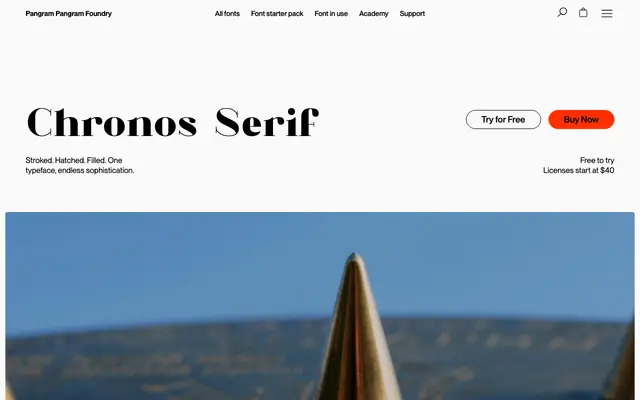
Chronos Serif
Pangram Foundry · Mat Desjardins · 2016
A decorative display serif in three stylistically distinct variants — Stroked, Hatched and Filled — designed for high-end visual work.
Designed by Mat Desjardins, Chronos Serif offers three treatments of the same letterforms: an outline Stroked style, a crosshatched Hatched style, and a solid Filled style. The elaborately curved forms and textural detail make it suited to luxury branding, packaging and editorial headlines where visual weight and ornamentation are the point. Language support covers a broad range of Latin-based scripts including Central and Eastern European languages.
Classified by the foundry under Display, Expressive, and Serif. The three variants — Stroked, Hatched, and Filled — are decorative treatments that place this firmly in display territory rather than conventional text serif use.